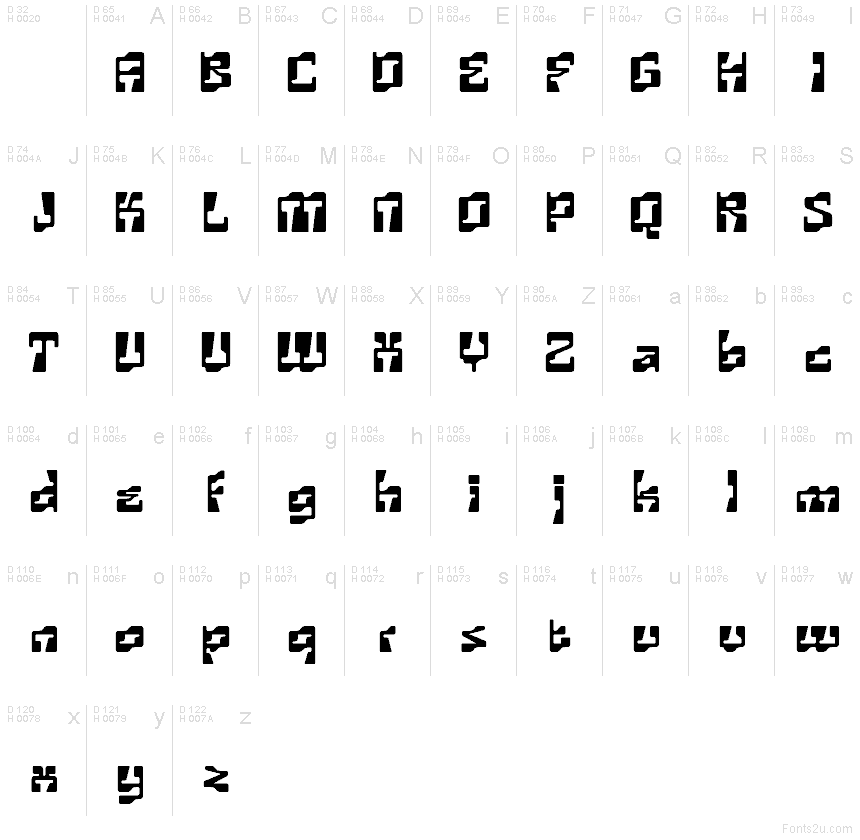
CS Signal Regular Demo
CS Signal font by Craft Supply Co. is a free bold futuristic display font that leans into soft, blocky contours and crisp, beveled cut-ins. Each letter feels molded—chunky shapes with rounded edges and smart negative “signal” slashes that keep the mass airy instead of clunky. The rhythm is modular and steady, so big words stack cleanly without visual wobble, and those squarish curves give a tactile, almost rubberized tech vibe.
This free font shines on sci‑fi titles, esports branding, tech posters, gadget packaging, streaming overlays, event badges, and bold UI headers. Using CS Signal at larger sizes with slightly tightened tracking delivers maximum impact, while pairing it with a thin geometric sans keeps supporting text clean and legible. It’s the kind of futuristic voice that reads confident, cohesive, and unmistakably modern.